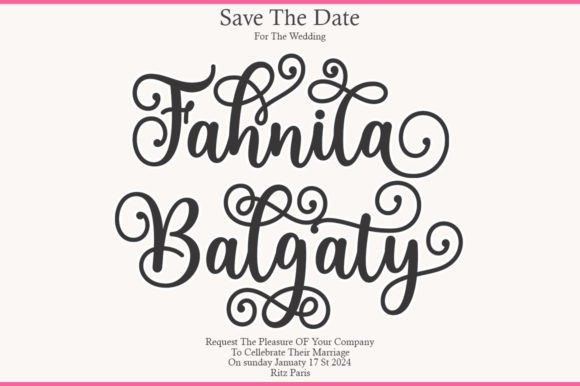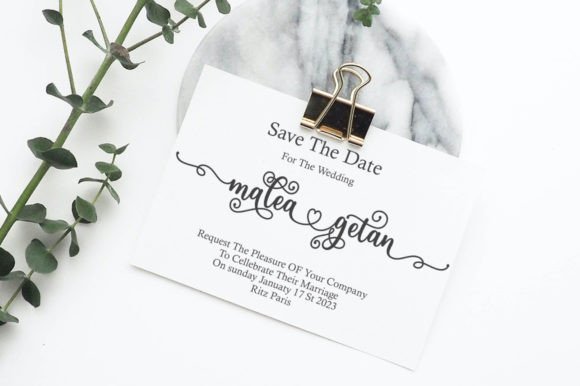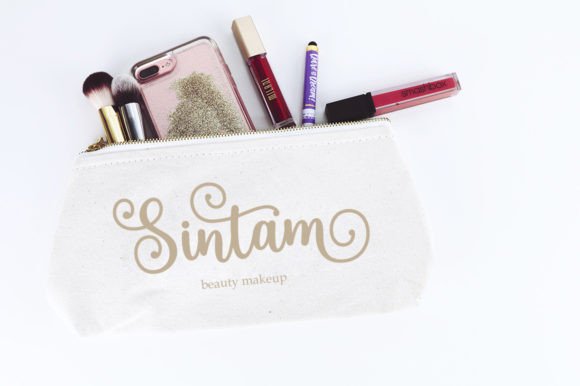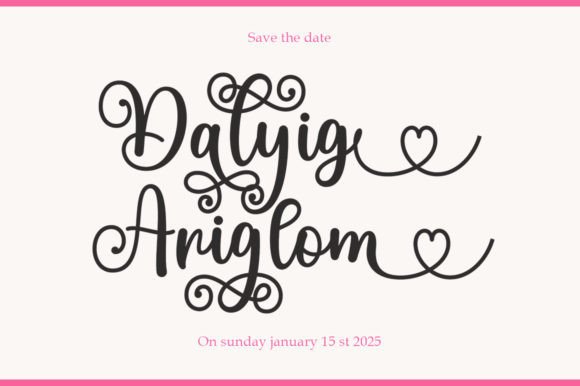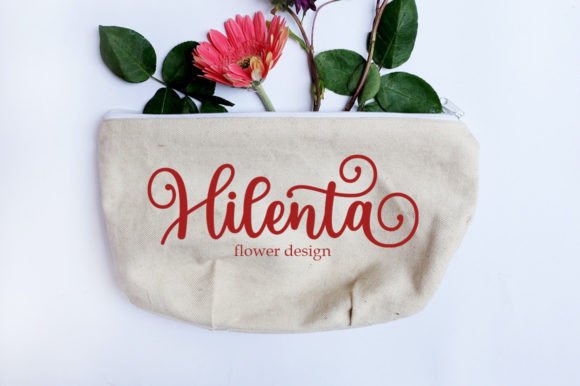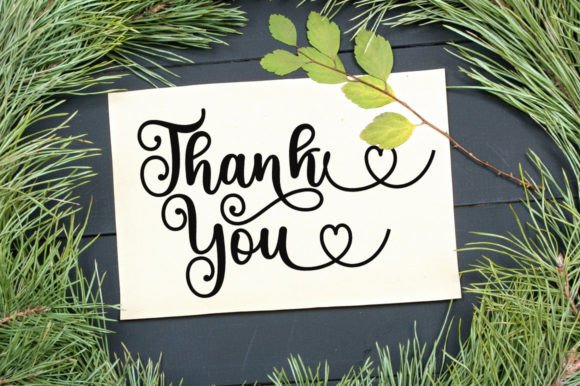
Bihgily Font: Elevate Your Designs with Elegance and Sophistication
In the world of typography, a font can make or break a design. A well-chosen font can elevate your project, convey the right tone, and leave a lasting impression on your audience. If you’re a designer, crafty DIY enthusiast, or simply someone who appreciates beautiful typography, you’re in luck. Meet Bihgily, a stunning handwritten font that’s about to take your creative endeavors to the next level.
The Beauty of Bihgily
Bihgily is a smooth, elegant, and flowing handwritten font that exudes sophistication and refinement. Its beautiful and balanced character makes it an excellent fit for a wide range of designs, from wedding invitations and branding materials to digital products and craft projects. Whether you’re looking to add a touch of whimsy or create a more formal, luxurious feel, Bihgily is the perfect choice.
What Sets Bihgily Apart
So, what makes Bihgily stand out from the crowd? Here are just a few features that set this font apart:
- Varied Baselines: Bihgily’s unique baselines add a touch of organic, handwritten charm to your designs, making them feel more approachable and personal.
- Smooth Lines: The font’s smooth lines and curves create a sense of fluidity and elegance, perfect for designs that require a high level of sophistication.
- Beautiful Glyphs: Bihgily features a range of beautiful glyphs, including stunning alternatives, that allow you to add an extra layer of creativity and personality to your designs.
Bringing Your Ideas to Life
With Bihgily, the creative possibilities are endless. Imagine being able to add a touch of elegance to your:
- Digital products, like ebooks and workbooks
- Craft projects, including handmade cards and gift tags
Whether you’re a seasoned designer or a crafty DIY enthusiast, Bihgily is the perfect tool to help you bring your ideas to life. Its versatility and range make it an excellent addition to your font library, and its beauty and elegance are sure to impress.
Why Designers and Crafters Love Bihgily
So, why do designers and crafters love Bihgily? Here are just a few reasons:
- Ease of Use: Bihgily is incredibly easy to use, even for those with limited design experience. Its PUA encoding makes it simple to access all the glyphs and swashes, and its smooth lines and curves ensure that your designs look professional and polished.
- Customization: With Bihgily, you have the freedom to customize your designs to your heart’s content. Experiment with different glyphs, swashes, and colors to create a truly unique look that reflects your personality and style.